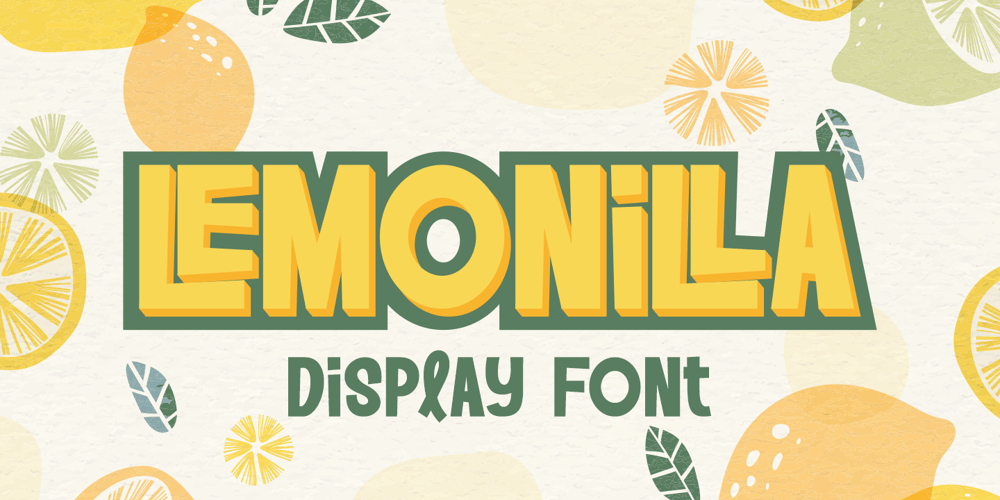
Lemonilla
Lemonilla font
Lemonilla Font Family was designed by Raditya Putra Pratama and published by Raditya Type. Lemonilla contains 1 styles and family package options. Lemonilla | Quirky Display FontLemonilla a bold, quirky display font with a fun, trendy street style vibe. From posters designs to t-shirts and packaging, Lemonilla will give your designs that alternative minimal look and make your creative work look supercharged.Lemonilla was hand-drawn, making its outlines somewhat irregular and quirky. It has an almost hand-lettered look; the characters jump around the baseline giving it a charming but urban look and feel.The modern bold sans serif typeface has a host of alternatives and ligatures included. Combine its bold shapes to give your work a more unique, hipster attitude. Easily create professional cool type lockups that look like hand lettering.